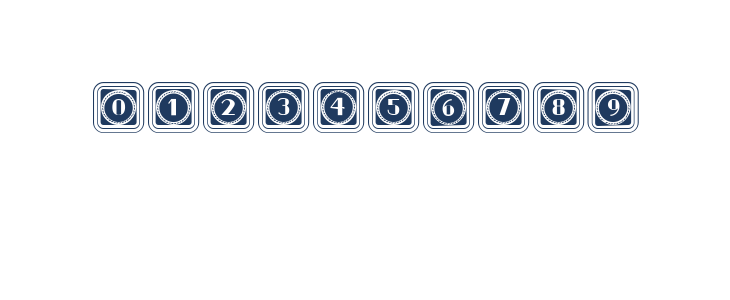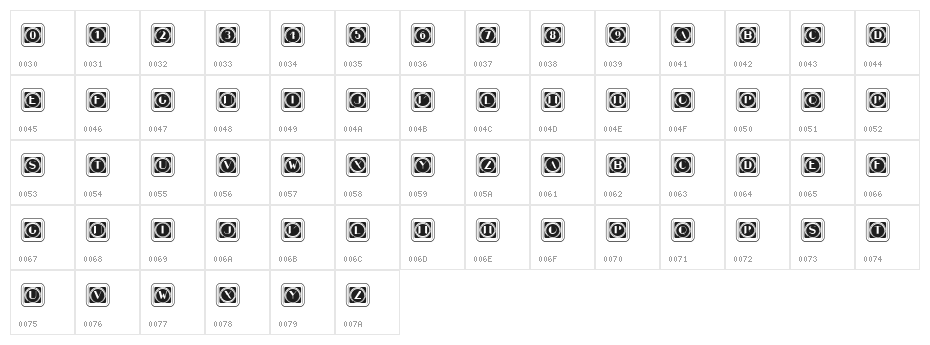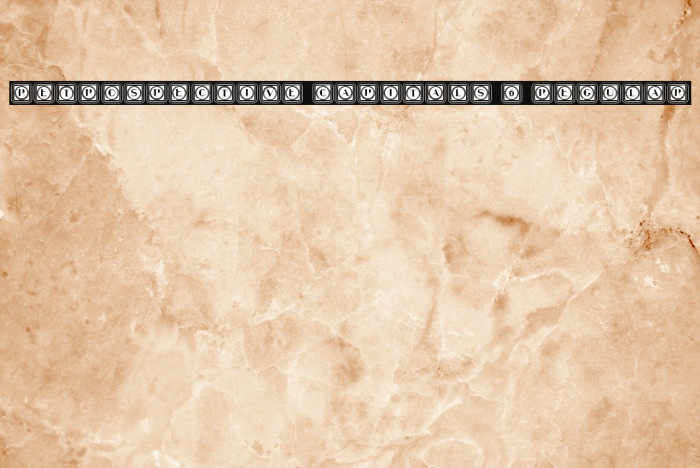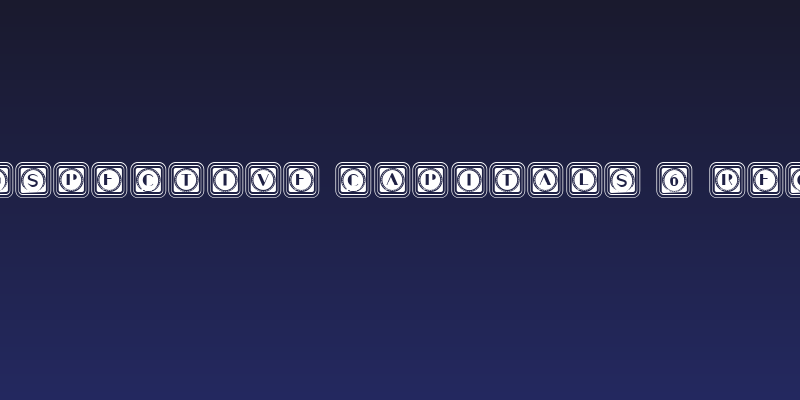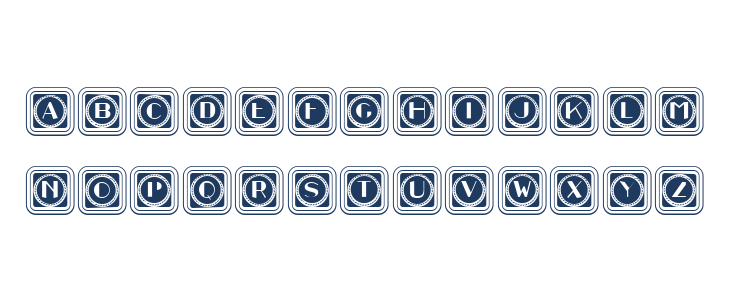
Retrospective Capitals 6 Regular Font
Retrospective Capitals 6 Regular Description
This font features a bold, decorative style with each character enclosed in a rounded square border. The letters and numbers are centered within these borders, creating a distinct and eye-catching appearance. The characters themselves are bold and slightly condensed, with a high contrast between the thick strokes and the thin inner lines. This design gives the font a retro, vintage feel, reminiscent of typewriter keys or old signage. The uniformity of the square borders adds a structured and organized look, making it ideal for projects that require a strong visual impact.